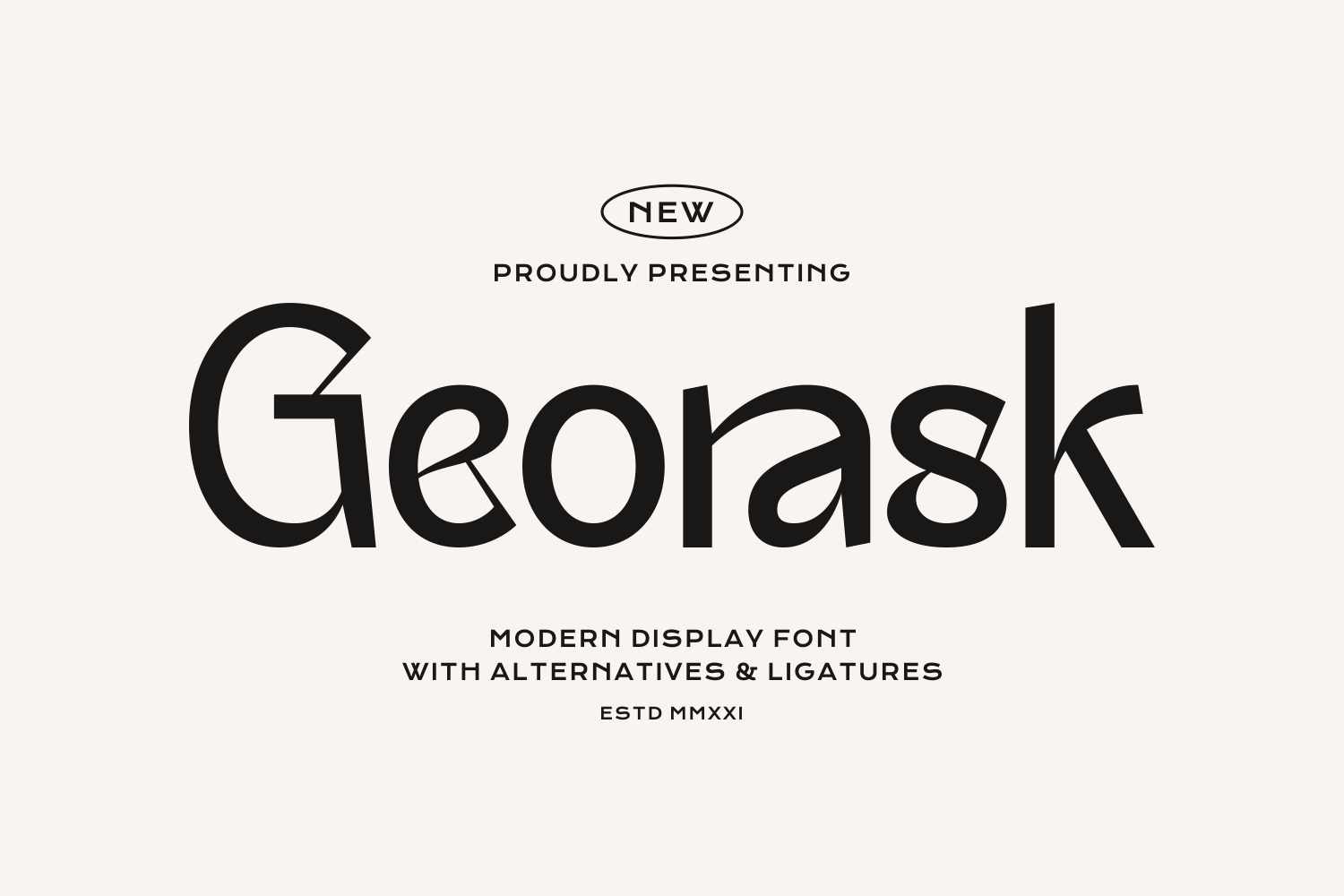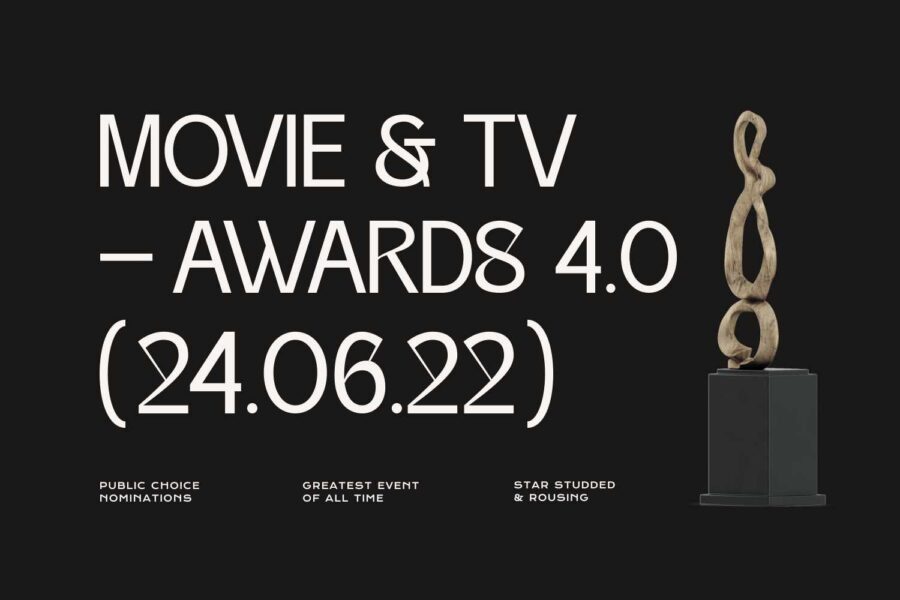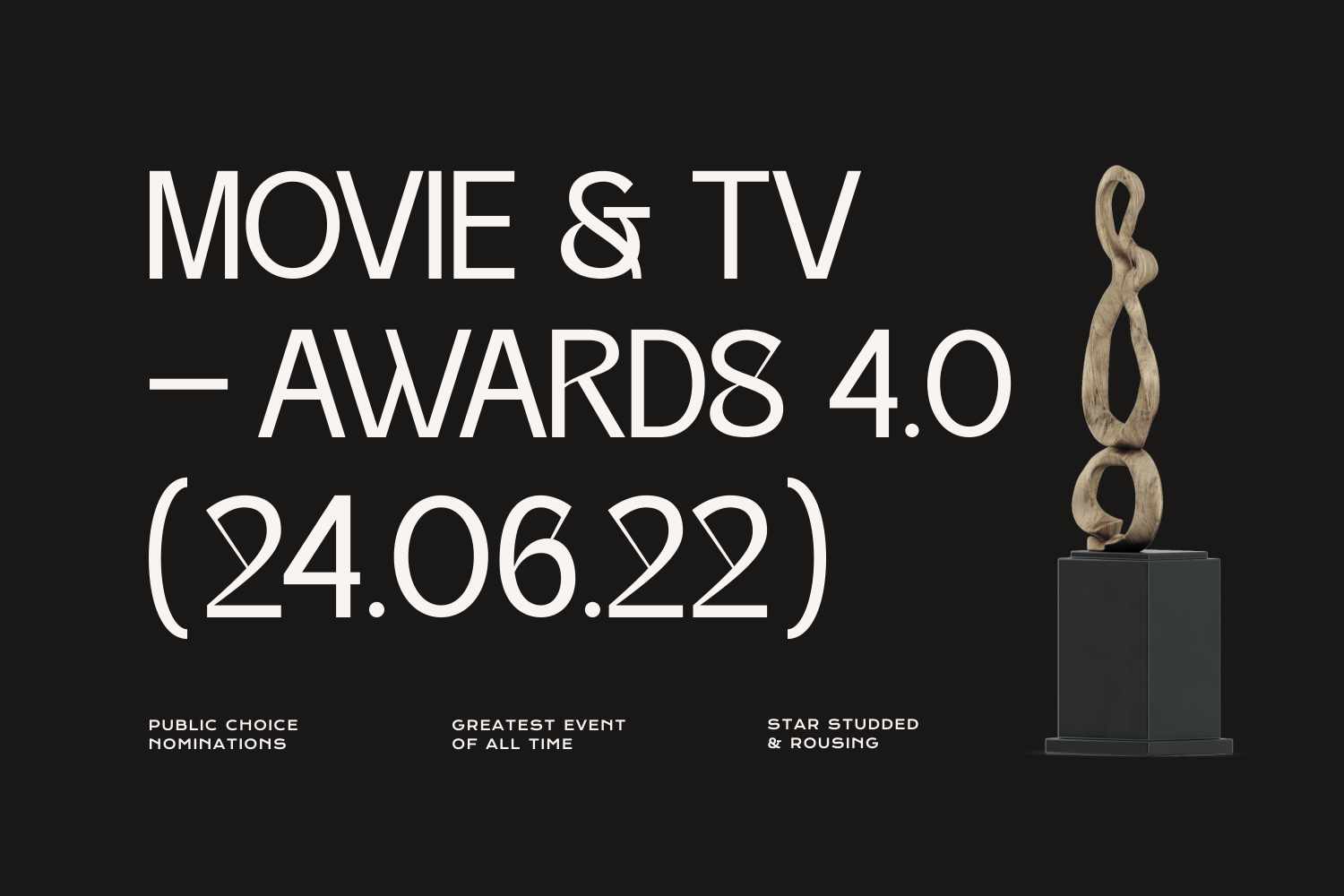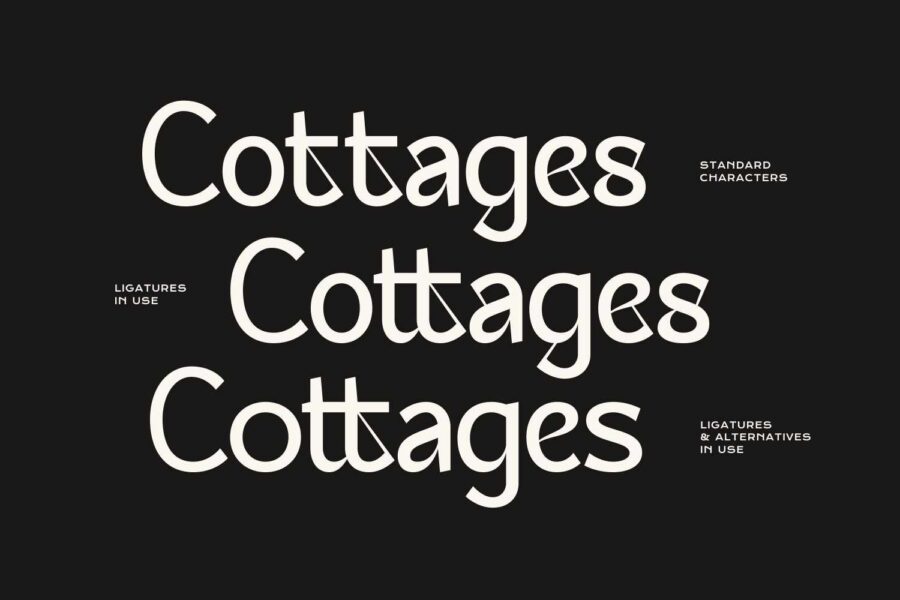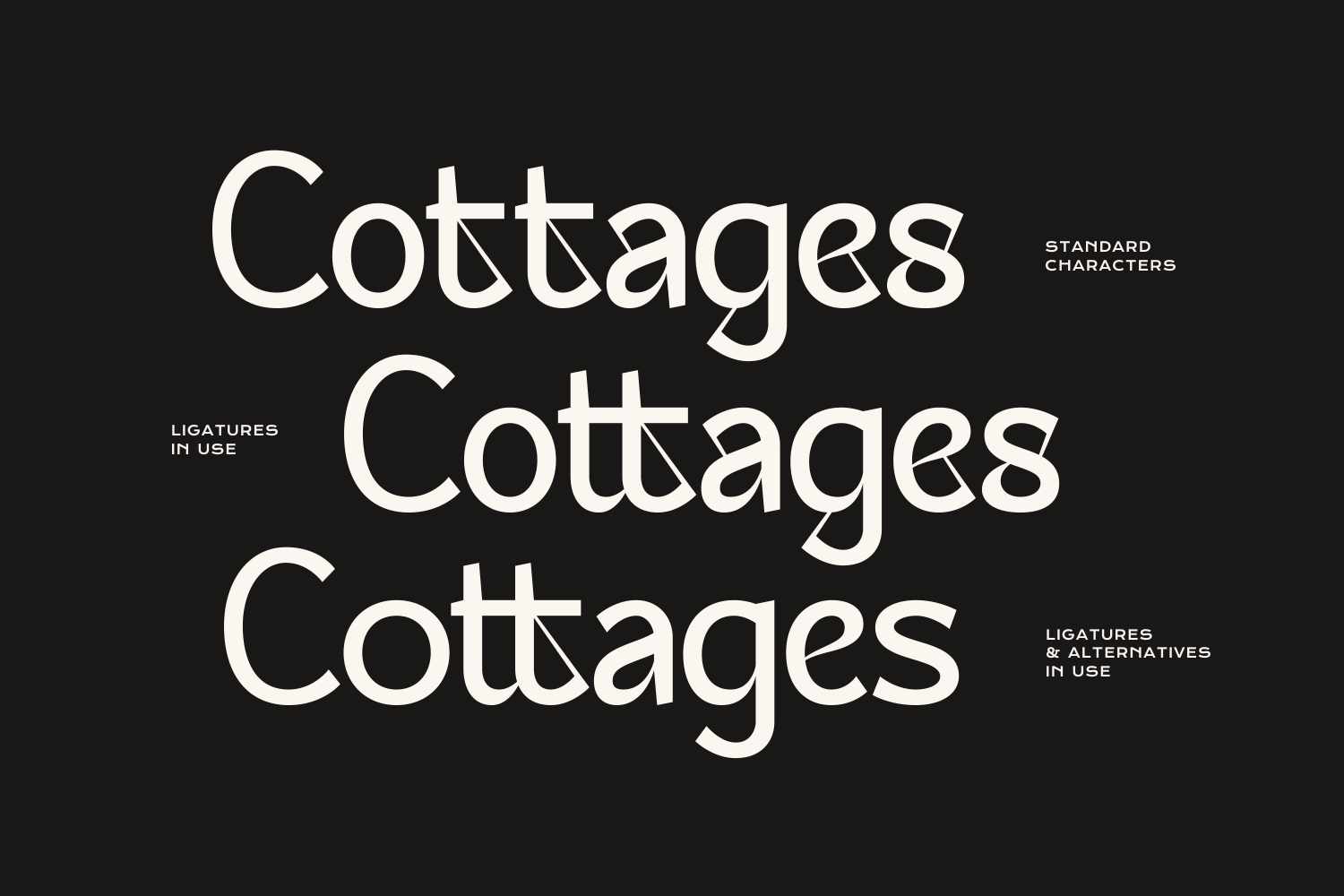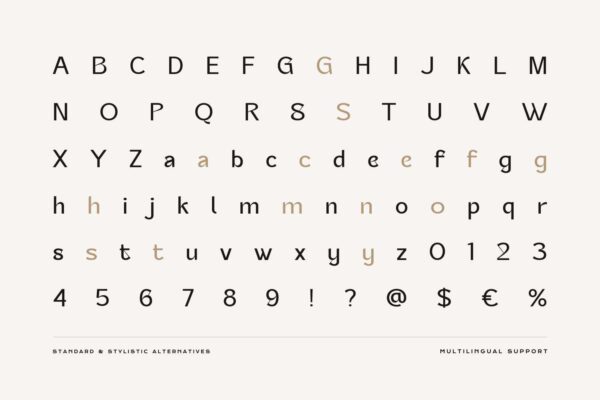
Georask is a modern display font that strikes a unique balance between playful geometry and minimalist elegance. With its unconventional curves and angular lines, Georask exudes a distinctive personality, making it ideal for branding, posters, editorials, and visual identity projects that need a modern twist. Its versatile character design offers a clean yet artistic impression that stands out in contemporary compositions.
The font includes a full set of stylistic alternates and creative ligatures, enabling designers to craft expressive titles and headline treatments with ease. Whether you’re working on architectural portfolios, tech startups, or fashion branding, Georask delivers clarity with a fresh design perspective. Multilingual support ensures that your message crosses borders effortlessly, while the alternate glyphs add a creative touch to any layout.
Georask